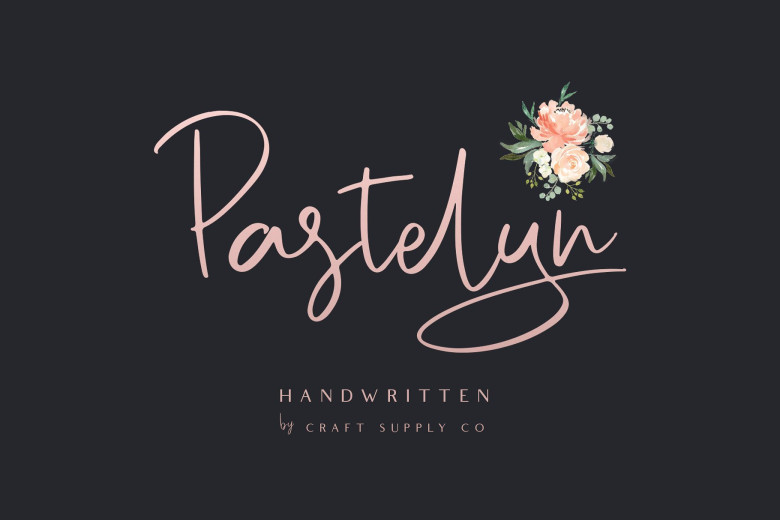
Pastelyn Handwritten Font
Hi designer! Introducing Pastelyn Font. Pastelyn – Handwritten Font is an handwritten script font based on the expression of real handwriting. Pastelyn – Handwritten Font will work perfectly for fashion, e-commerce brands, trend blogs, wedding boutiques or any business that wants to appear upscale and chic.